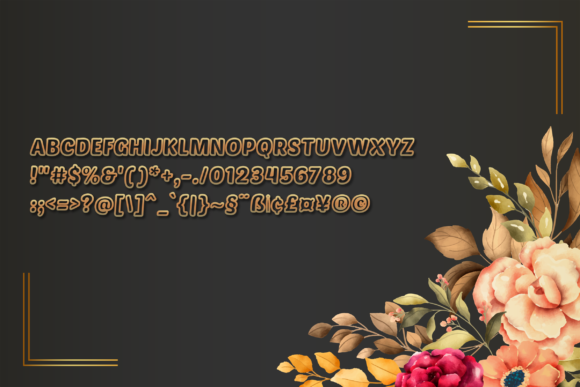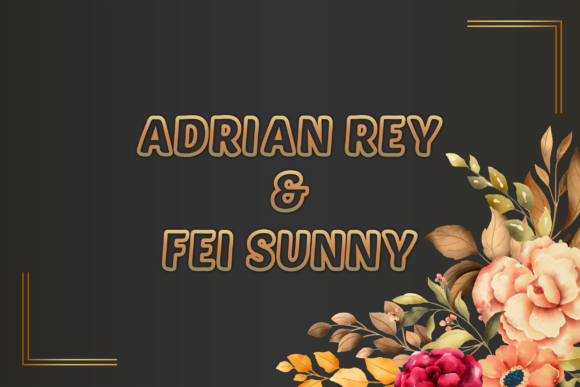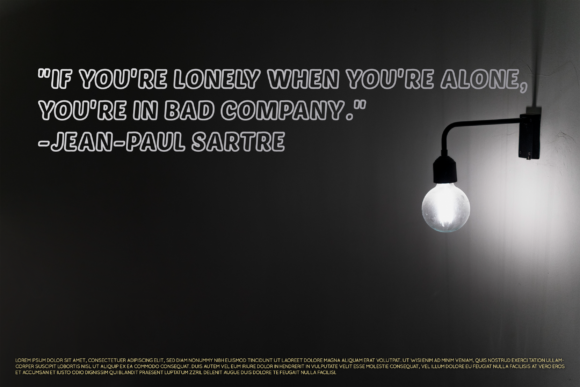
Introduction to Lexandrya Outline Font
Lexandrya Outline is a cute, yet elegant display font that radiates charm.
Fall in love with its extraordinary style .
Key Features of Lexandrya Outline Font